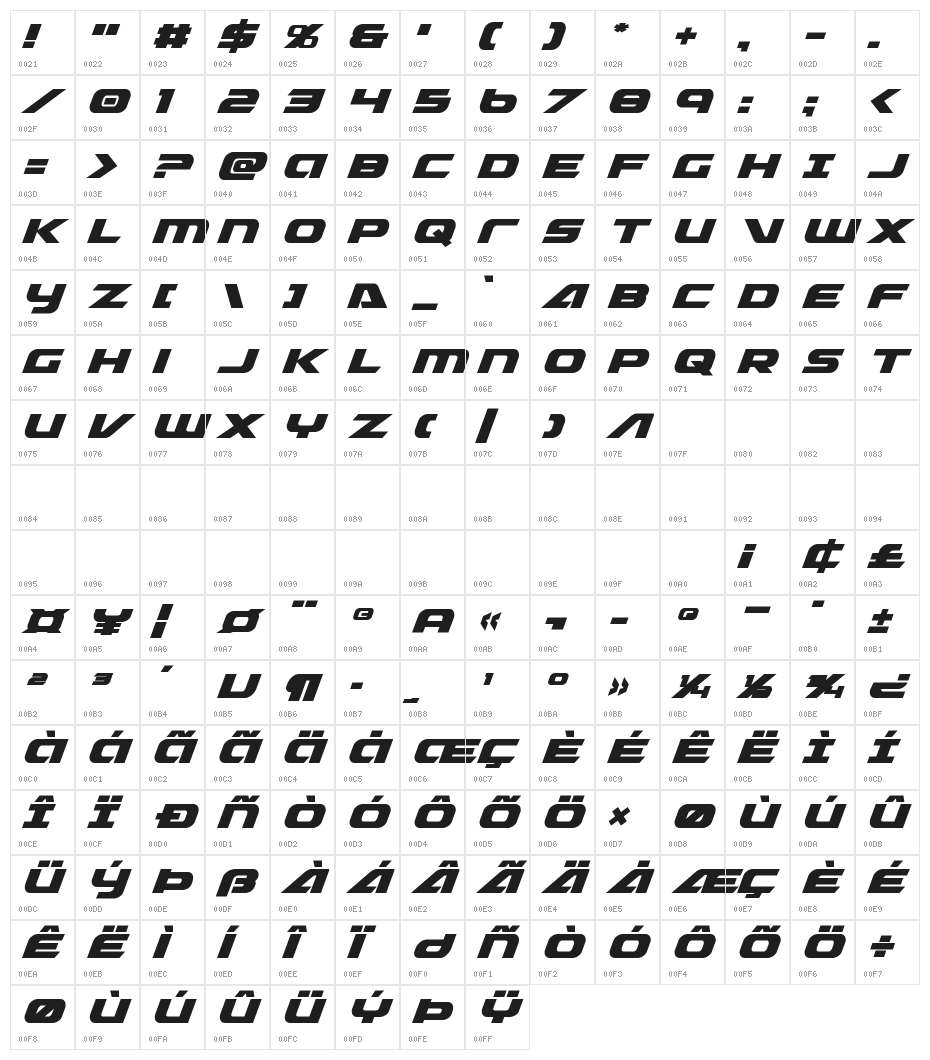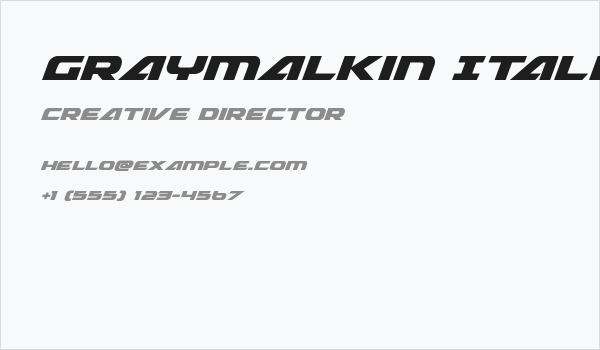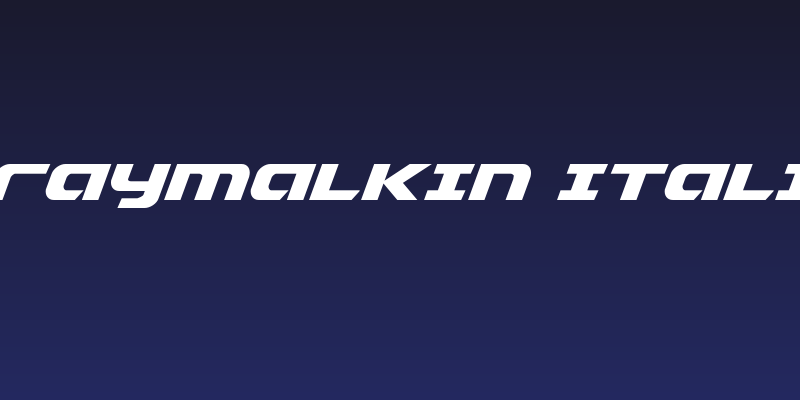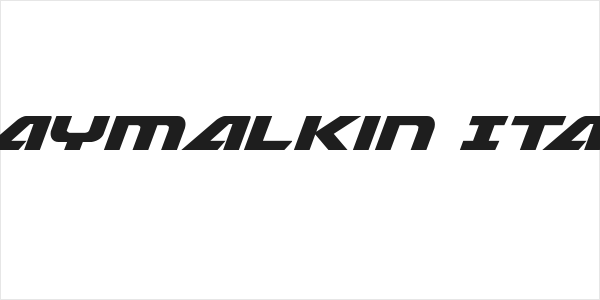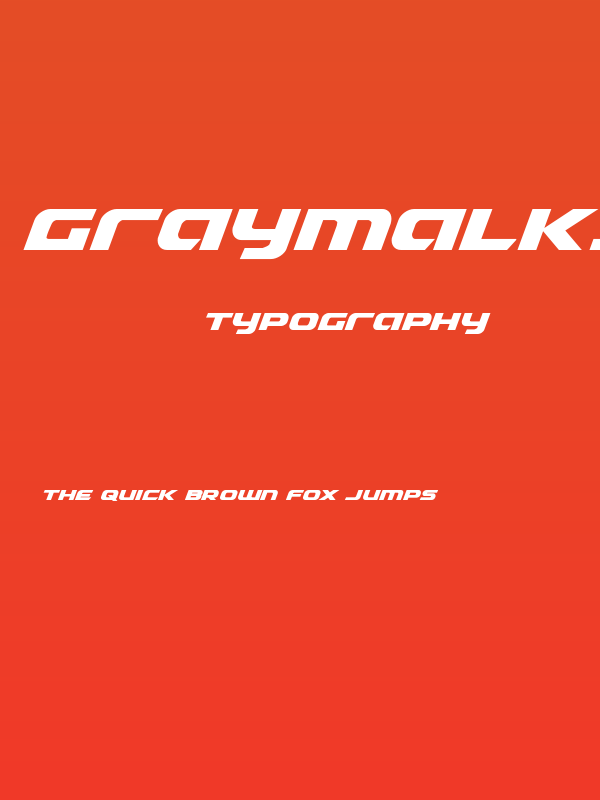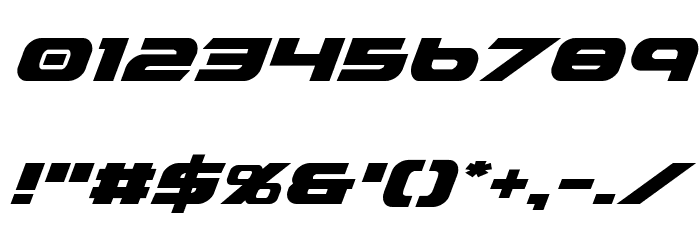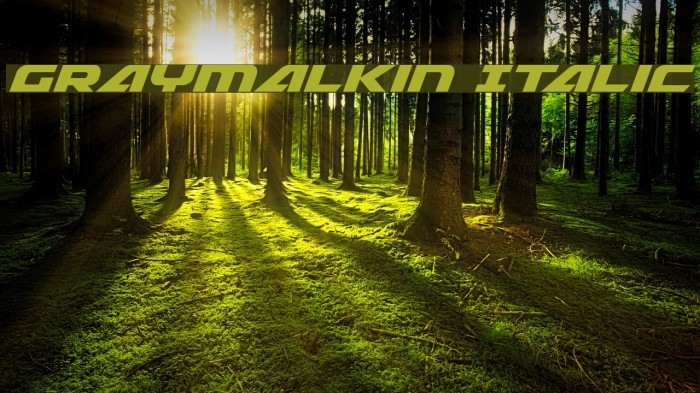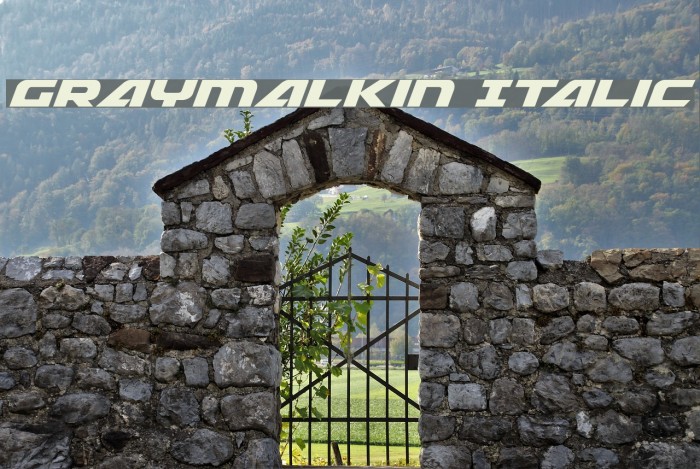
Graymalkin Italic Font
Graymalkin Italic Description
This font features a bold, italicized style with a modern and dynamic appearance. The characters are slightly slanted, giving a sense of motion and speed. The strokes are thick and consistent, providing a strong visual impact. The design includes sharp angles and clean lines, contributing to its futuristic and sleek look. The spacing between characters is tight, enhancing the compact and cohesive feel of the text. This font is well-suited for projects that require a bold statement or a contemporary aesthetic.
| Use Case | Logos, Headlines |
| Proposed Projects | Ideal for sports branding, automotive logos, technology advertisements, and dynamic poster designs. |